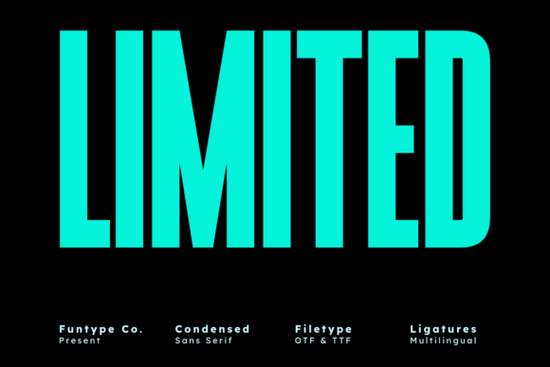
If you need a typeface that grabs attention instantly without taking up too much space, the Limited Font is worth a serious look. It's a bold, ultra-condensed sans serif built for strong headlines and high-impact visuals. Whether you're designing posters, album covers, sports graphics, or branding materials, this font delivers a clean, confident look that works across many projects.
What Makes Limited Font Different from Other Bold Fonts?
Most bold fonts tend to eat up horizontal space. That's a problem when you're working with tight layouts, social media templates, or packaging where every inch counts. Limited takes a different approach by going ultra-condensed. The tall structure and narrow width let you stack words and headlines in ways that feel powerful without feeling crowded.
Think of a movie poster or a sports event flyer. The text needs to hit hard and fast. Limited Font does exactly that. Its geometric shapes and consistent stroke weight give it a modern, polished feel that doesn't rely on decorative tricks. It just works cleanly and directly.
Who Is This Font Best For?
Limited Font is a practical choice for a wide range of creative projects. Here are some people who benefit from it most:
- Print-on-demand sellers who design t-shirts, mugs, and posters that need bold, readable text
- Small business owners creating signage, menus, flyers, or social media graphics
- Graphic designers working on branding kits, album covers, or advertising layouts
- Crafters and hobbyists who want a strong font for Cricut projects, stickers, or scrapbooking
- Social media managers looking for attention-grabbing text for Instagram posts, YouTube thumbnails, or banners
The condensed shape also makes it easier to fit longer words into tight design spaces, which is something wider fonts struggle with.
Where Does Limited Font Work Best?
Because of its bold and narrow build, this font shines in specific design contexts:
- Headlines and titles the tall letterforms draw the eye right away
- Poster design works well for event posters, gig flyers, and promotional prints
- Album and cover art gives music covers and book jackets a strong typographic anchor
- Sports and fitness graphics the boldness pairs naturally with energetic, athletic themes
- Branding and logos a good fit for brands that want a modern, no-nonsense voice
- Advertising great for banners, billboards, and digital ads where text needs to pop
It's less suited for body text or long paragraphs, but that's not what it's designed for. Use it where impact matters most.
How Does It Compare to Other Sans Serif Options?
Limited Font holds its own among these options because of how specifically it serves bold, condensed needs. It doesn't try to be everything. It focuses on doing one thing well making your text powerful and compact.
Tips for Getting the Most Out of Limited Font
- Pair it with a clean body font. A simple sans serif or serif for body text will balance the boldness of Limited in your headlines.
- Use generous spacing. Since the font is condensed, adding a bit more letter-spacing can improve readability at smaller sizes.
- Stick to short text blocks. It works best for headlines, titles, and short phrases rather than full paragraphs.
- Experiment with color contrast. Bold condensed fonts look great with strong color pairings dark on light or bright on dark backgrounds.
- Test it at multiple sizes. What looks great on a poster might feel too tight on a mug design. Always preview before finalizing.
Should You Add Limited Font to Your Collection?
If you regularly work on projects that need strong, space-efficient typography, then yes. It fills a specific gap that many font libraries overlook bold impact without the wide footprint. Whether you're building a brand identity, designing merchandise, or creating social content, having a condensed bold option like Limited in your toolkit gives you more flexibility when layout space is tight.
Starting with a test headline in your actual project file is the fastest way to know if Limited Font is the right fit. Give it a try and see how it handles your next bold design idea.